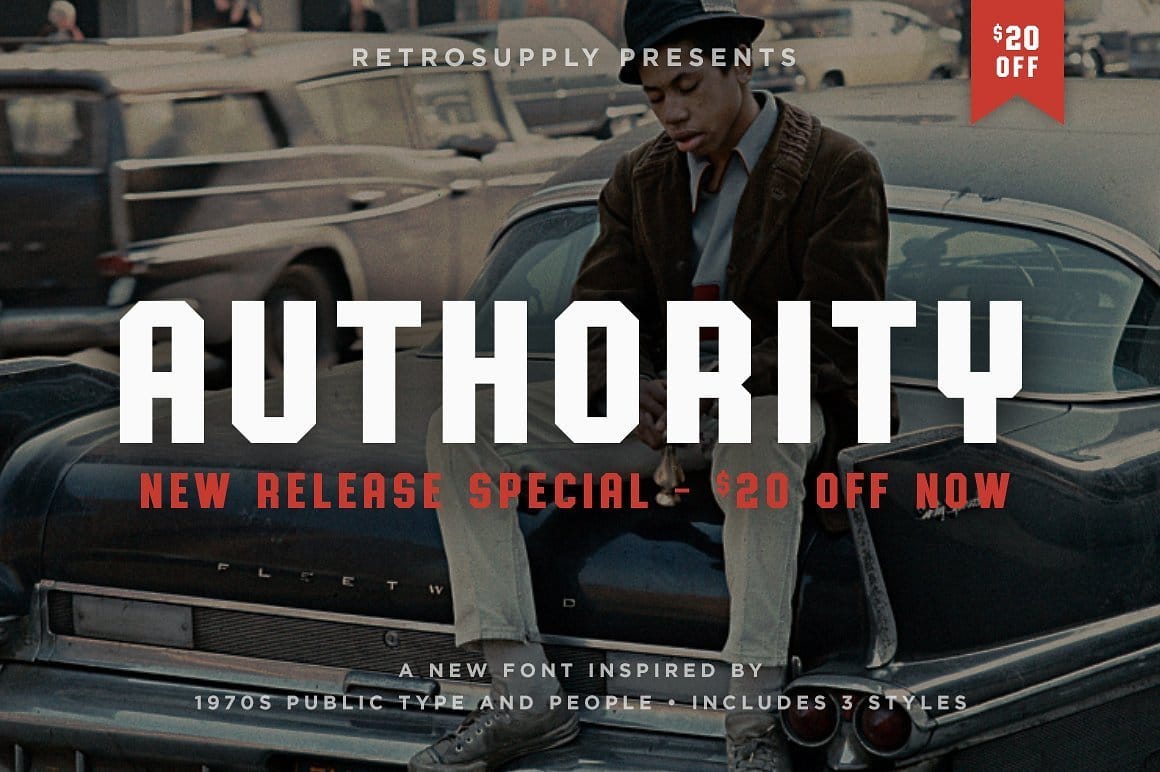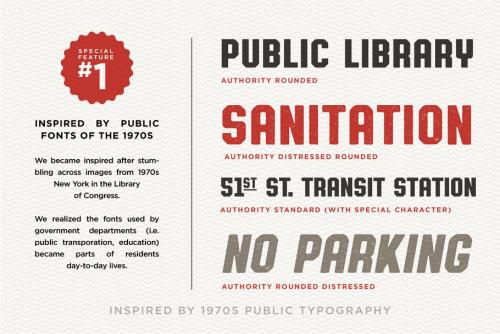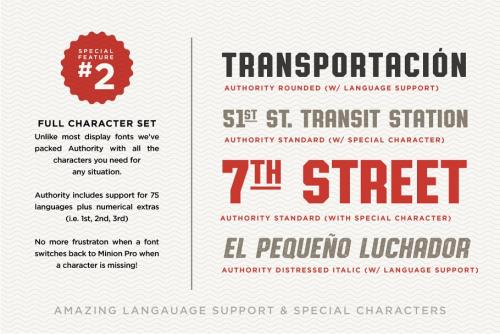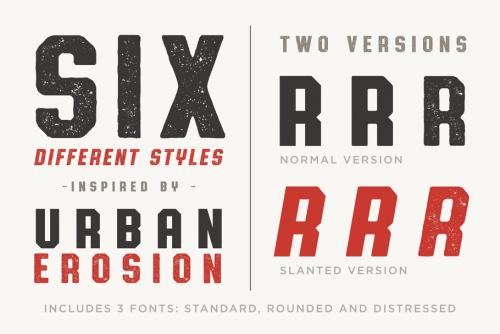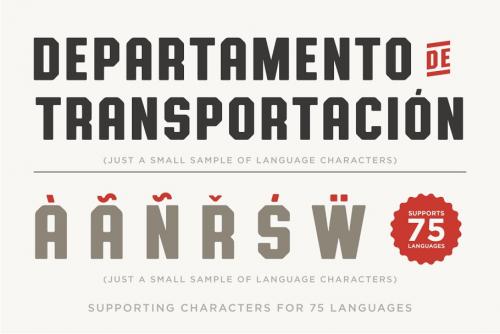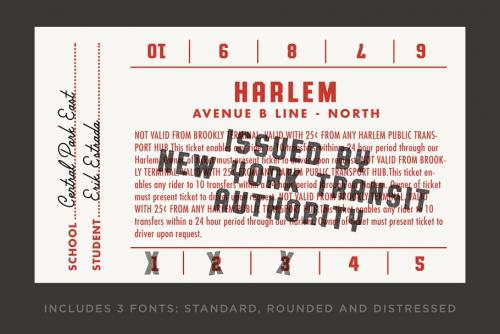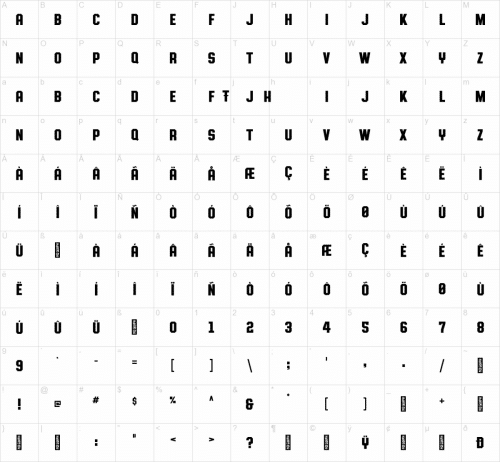
Authority s Public Font
Inspired by public fonts in New York in the 1970s. Authority pays tribute to the almost unnoticed but powerful effect typefaces have on our lives.
From waiting to catch the next bus to work to the worn type on public mailboxes. Type speaks loudly and softly all at once into our lives.
• Designer: RetroSupply Co.